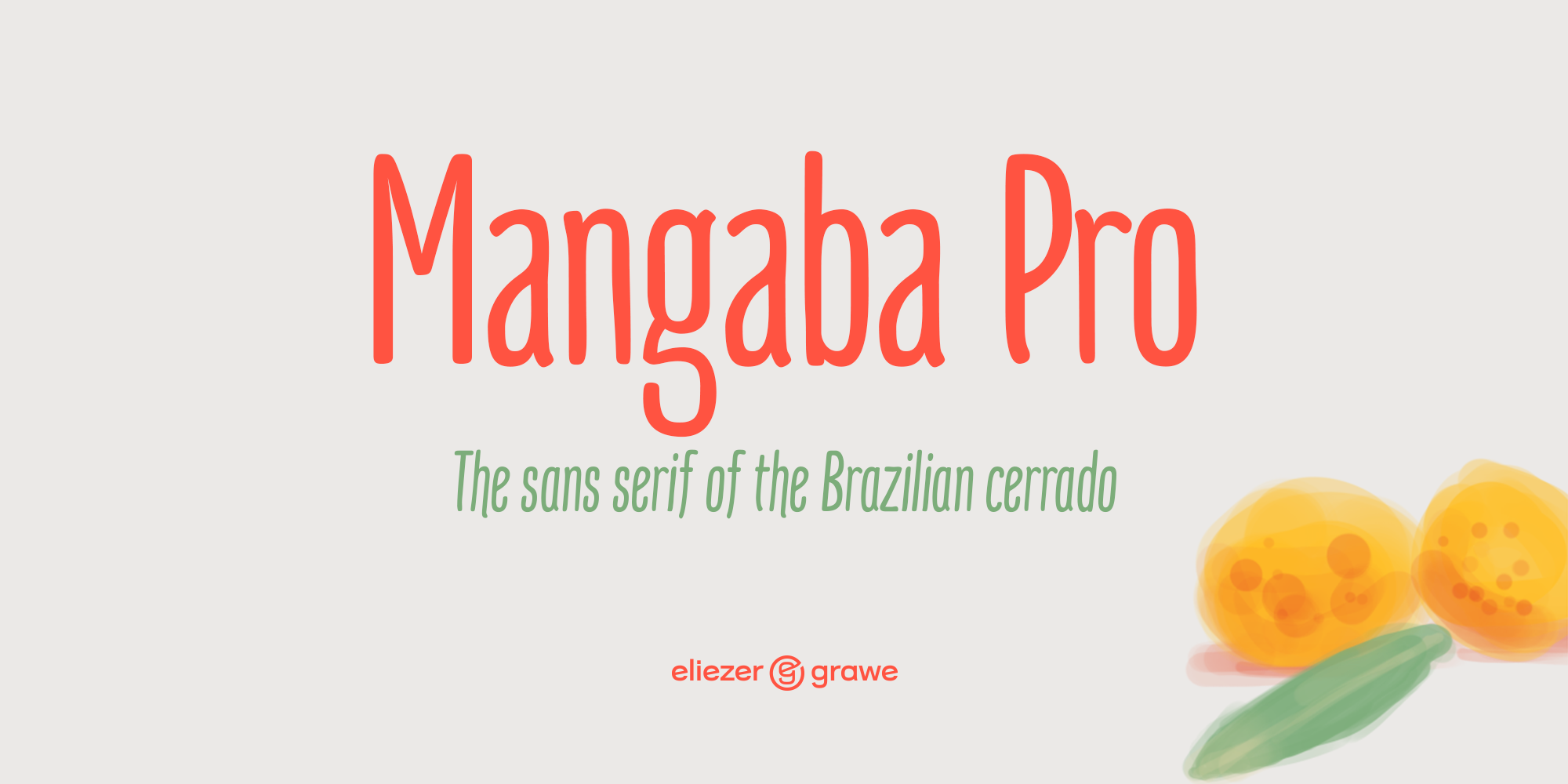
Mangaba Pro Font is perfect for professional corporate branding, sophisticated business communications, executive presentation materials, premium financial documents, authoritative legal publications, refined consulting firm logos, prestigious academic materials, and elite professional service expressions.
What makes Mangaba Pro Font exciting is its professional excellence and sophisticated authority that establishes immediate credibility and executive presence in competitive business environments. This distinguished typeface combines corporate precision with refined elegance, creating letters that command respect and communicate professional mastery. The font's pro-level character construction and business aesthetic make it an essential tool for brands seeking to communicate expertise, reliability, and professional distinction.
Mangaba Pro Font family includes Regular, Bold, Light, Medium, Black, and Condensed variations, plus professional symbols and corporate elements. Each style maintains the font's authoritative character while providing comprehensive flexibility for creating sophisticated business design systems and professional brand communications that reflect executive excellence and corporate leadership.
Professional design specialists consistently choose Mangaba Pro Font Free Download for projects requiring corporate sophistication and business visual impact. This remarkable typeface has gained recognition among Fortune 500 companies, professional service firms, and executive organizations worldwide. The font's ability to convey authority and professional excellence makes it perfect for brands operating in corporate, financial, and professional service markets.
The design philosophy behind Mangaba Pro Font emphasizes professional authority and corporate sophistication. Its letterforms feature precise construction with carefully balanced proportions that reflect the standards of excellence and professional reliability found in successful business environments and executive leadership. The font's distinctive elements include professional flourishes and corporate character variations that create immediate trust with audiences seeking reliable professional services.
Creative agencies specializing in corporate and professional branding frequently select Mangaba Pro Font for clients requiring authoritative communication and professional brand expression. The font's versatility allows seamless integration into comprehensive corporate branding systems, from executive campaigns to professional service launches, ensuring consistent brand personality across all business and professional touchpoints.
The technical execution of Mangaba Pro Font demonstrates advanced understanding of corporate typography requirements and professional design standards. Optimized for both executive presentations and business documentation, the font includes extensive OpenType features that support professional design workflows. The comprehensive character set and corporate symbol library make it suitable for international business campaigns requiring authentic professional typography with global corporate appeal.